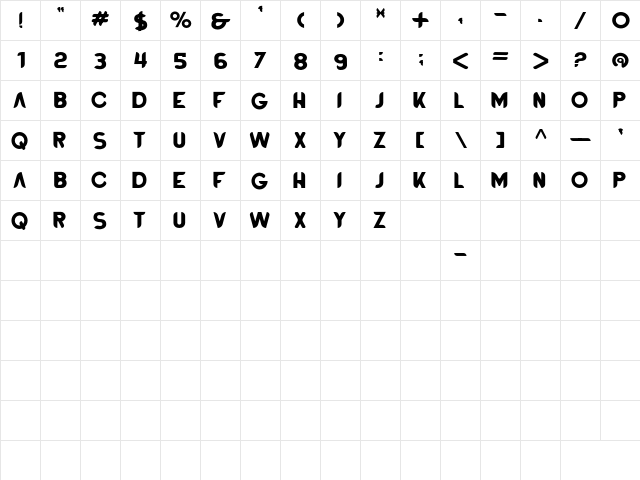
BATTLE ROYALE FONT Bold
| Designer | Yonathan Zacheus Ticoalu |
Design Context for BATTLE ROYALE FONT Typeface
BATTLE ROYALE FONT is a composed and adaptable typeface that performs quietly and consistently across a wide range of design contexts. Its bold stroke weight gives it real presence on the page.